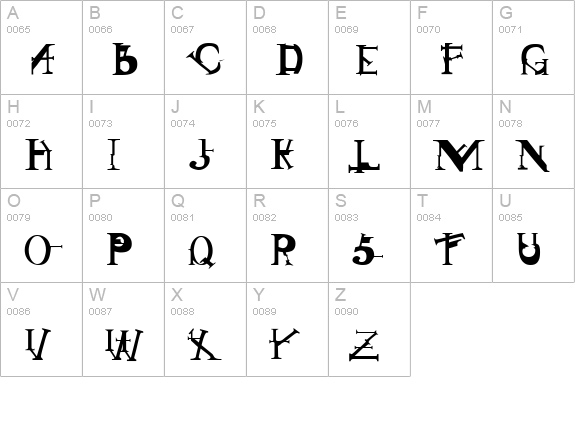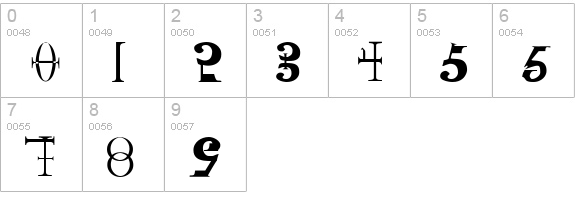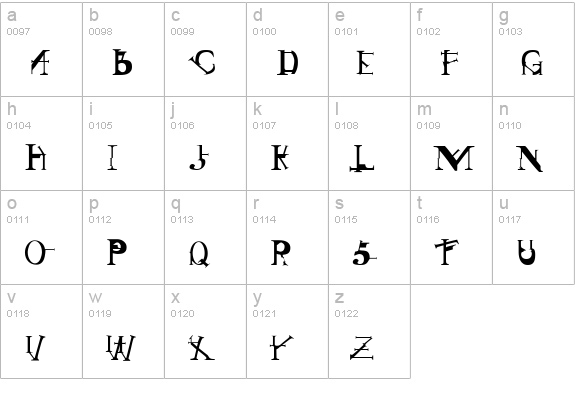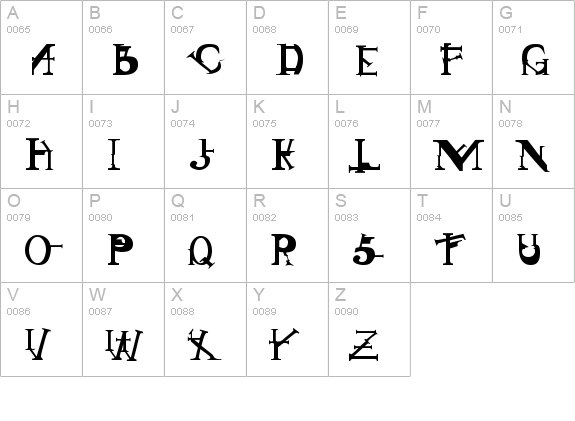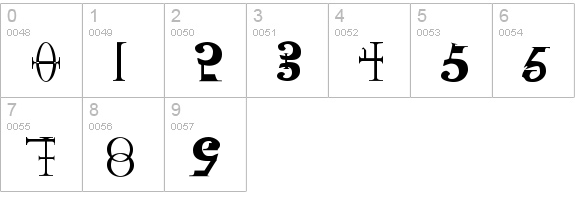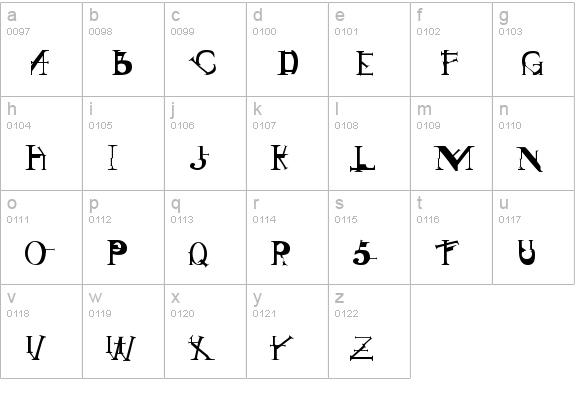
Introducing SinGothic, a truly mesmerizing font that effortlessly blends the beauty of gothic aesthetics with a touch of modern grace. This unique typeface captures the essence of darkness and elegance, making it the perfect choice for those seeking to make a bold statement with their designs. SinGothic boasts an intricate and captivating design, with its sharp, angular lines and intricate details. Each letter is meticulously crafted, offering a balance between edginess and sophistication. Whether you're creating a logo, designing a poster, or crafting a website, SinGothic will undoubtedly leave a lasting impression. What sets SinGothic apart from other fonts is not only its striking appearance but also its accessibility. We believe that creativity should be limitless and freely expressed, which is why SinGothic is available to download for free at FontsMarket.com. We want to empower designers, artists, and enthusiasts to unleash their imaginations without any barriers. With SinGothic, you have the freedom to explore endless creative possibilities. Let your designs come alive with its bold and powerful presence. Whether you're aiming for a gothic ambiance, a mysterious allure, or a touch of darkness, SinGothic will effortlessly bring your vision to life. Download SinGothic today from FontsMarket.com and embark on a journey of artistic expression. Unleash your creativity, captivate your audience, and make a statement that will leave an indelible mark. SinGothic is here to empower you, to inspire you, and to help you create truly unforgettable designs.